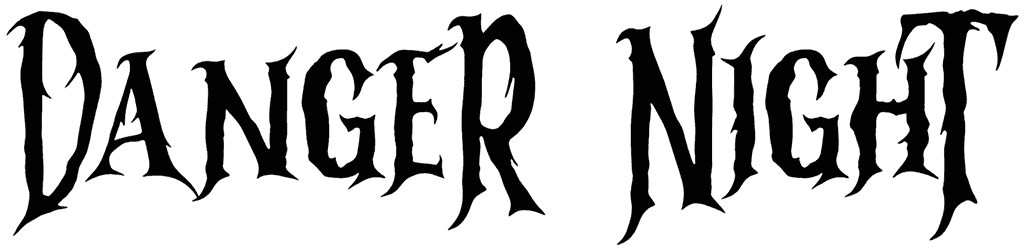
Danger Night Font
The first step before diving into designing graphic content is selecting a suitable holiday font the such as Danger Night, that comes with a sense of dread, fear, spookiness, and dynamism.
This all-caps mysterious font comes with elegant letters; thus, it can be your first option in the realm of designing movie posters, applications, billboards, or stickers. Considering all of its numerous advantages, not fully supporting numbers will never be a serious problem.